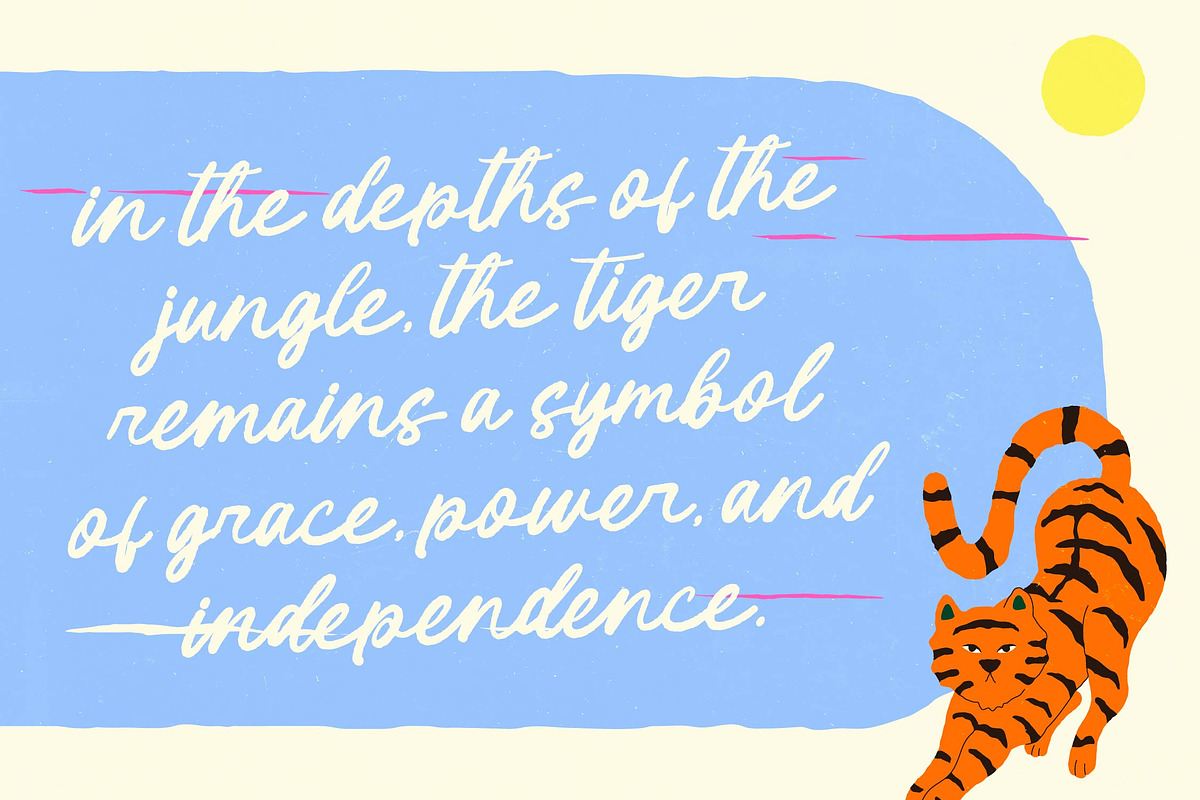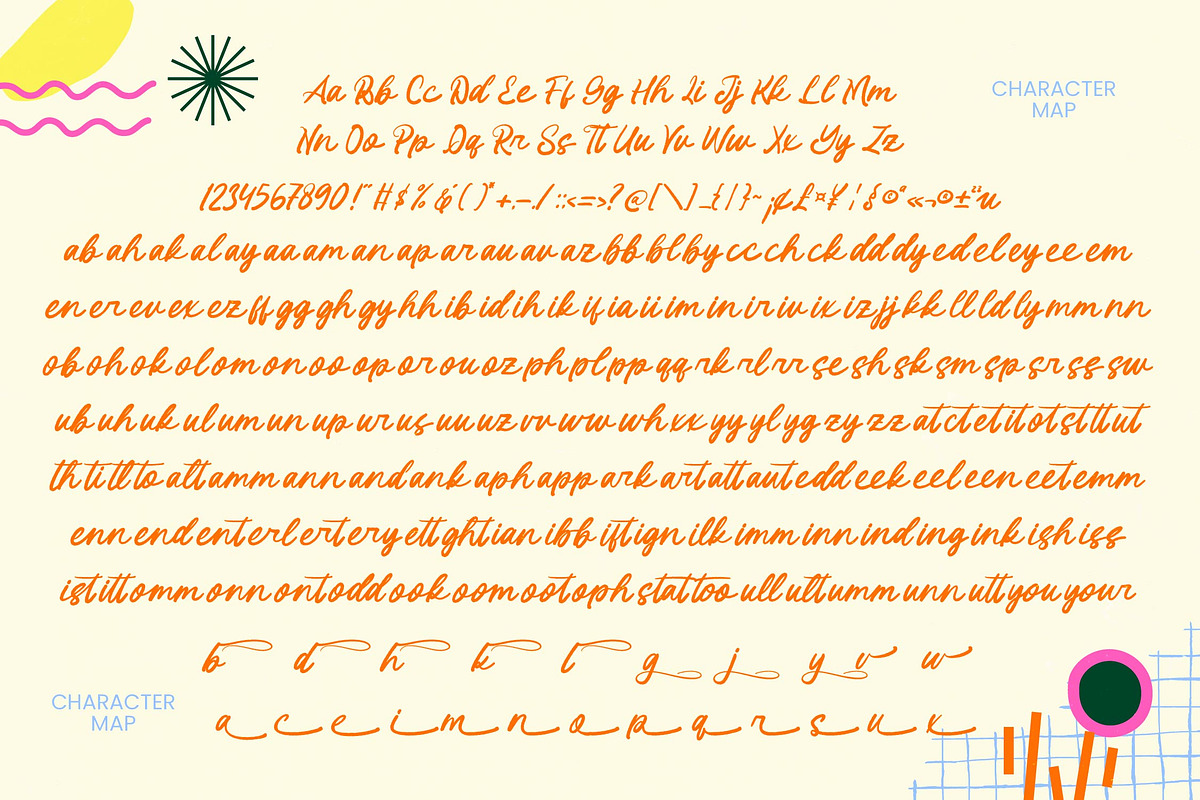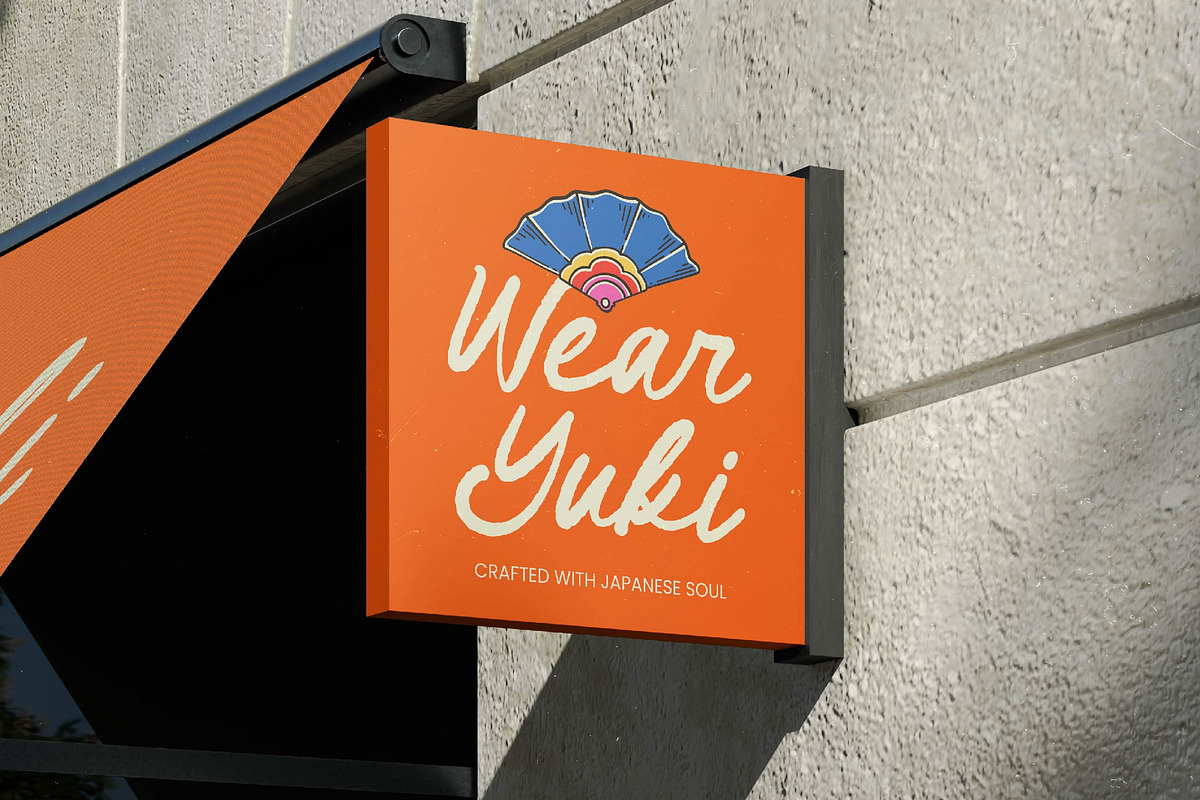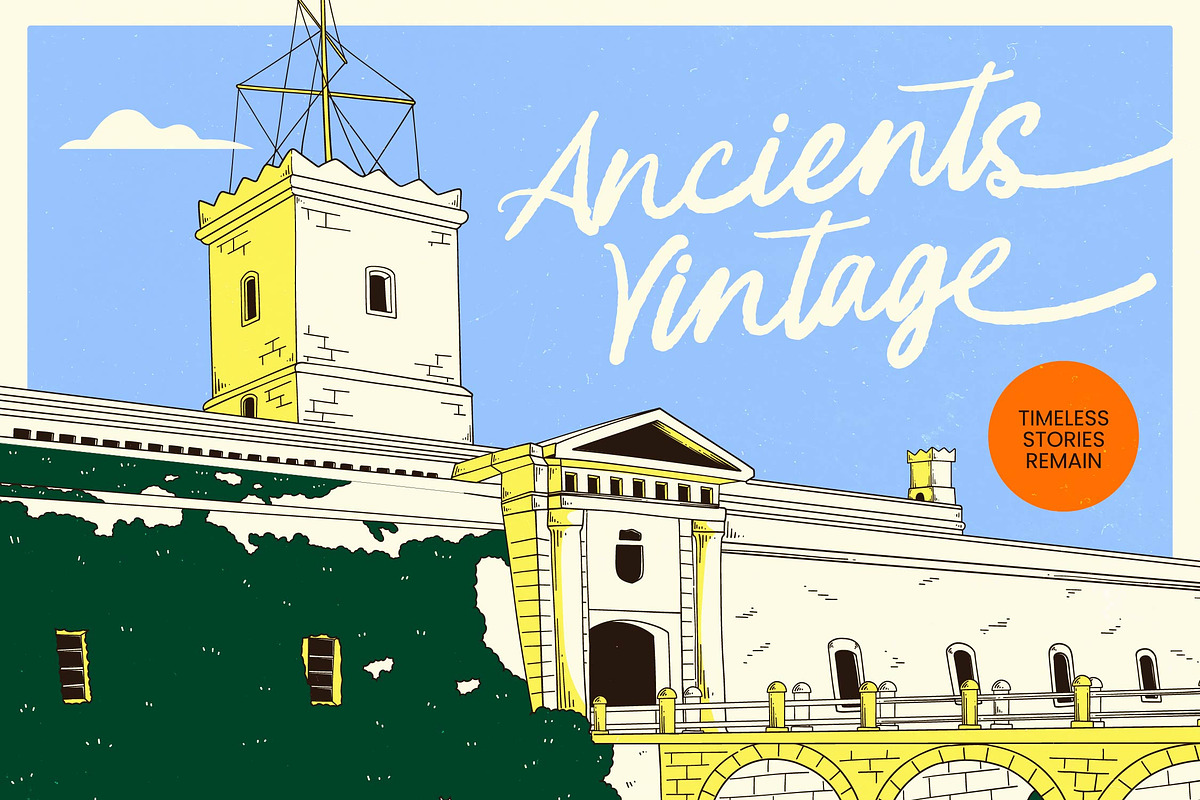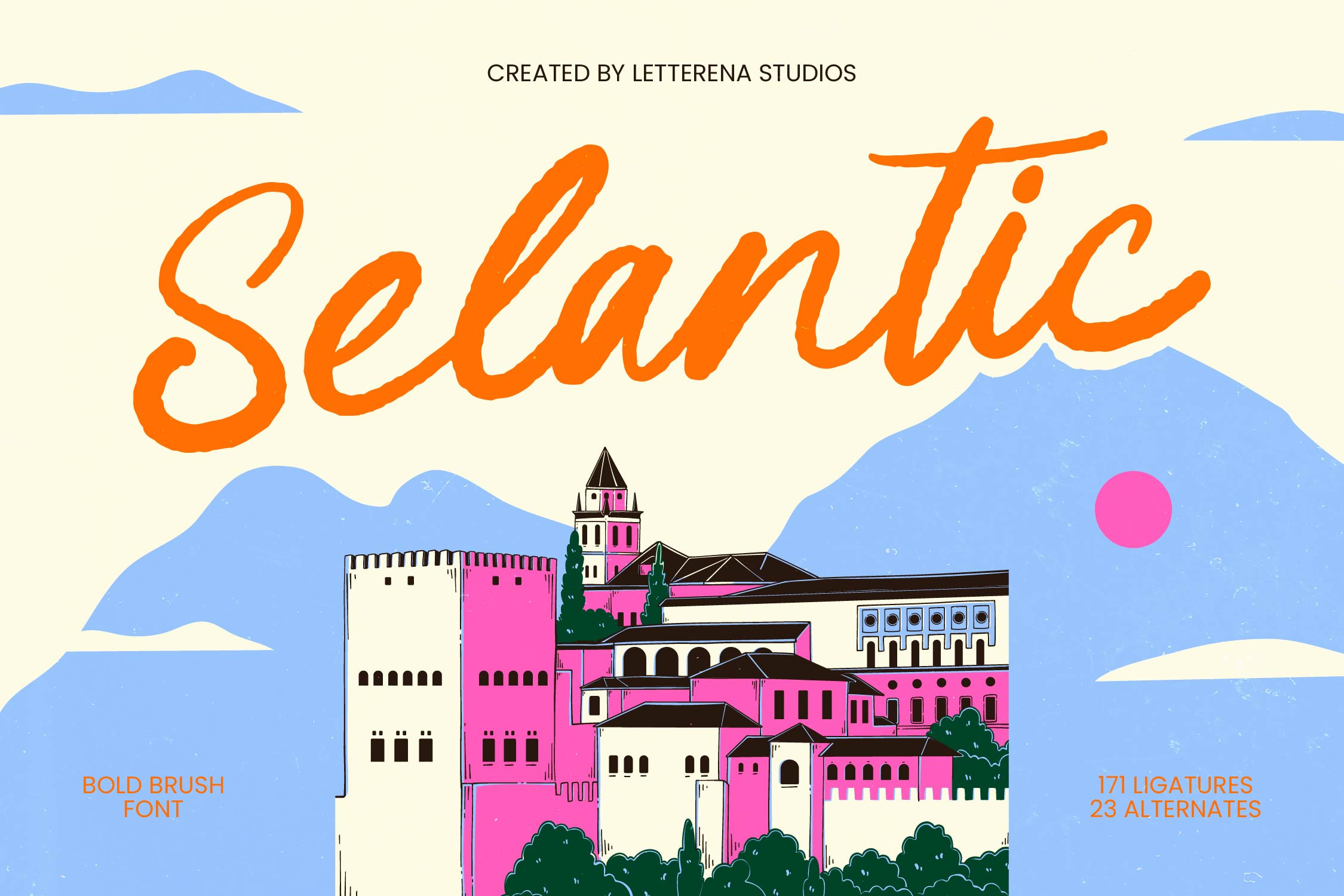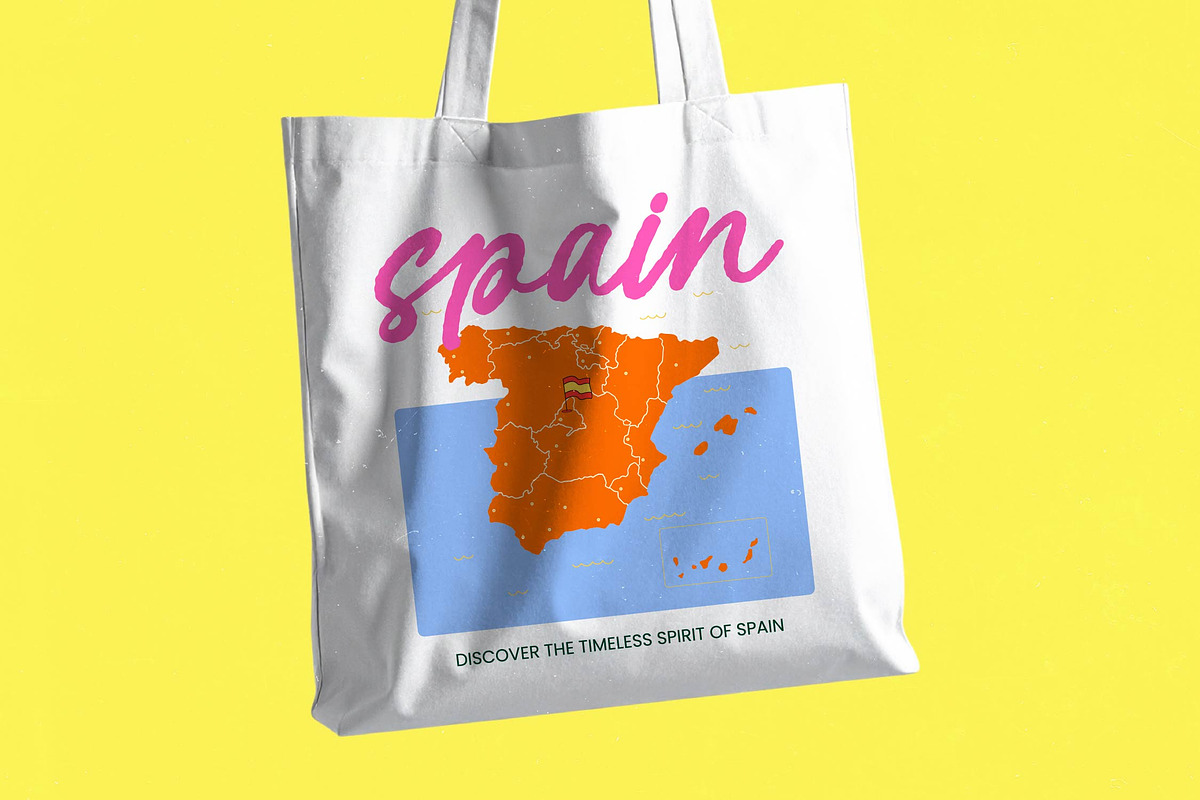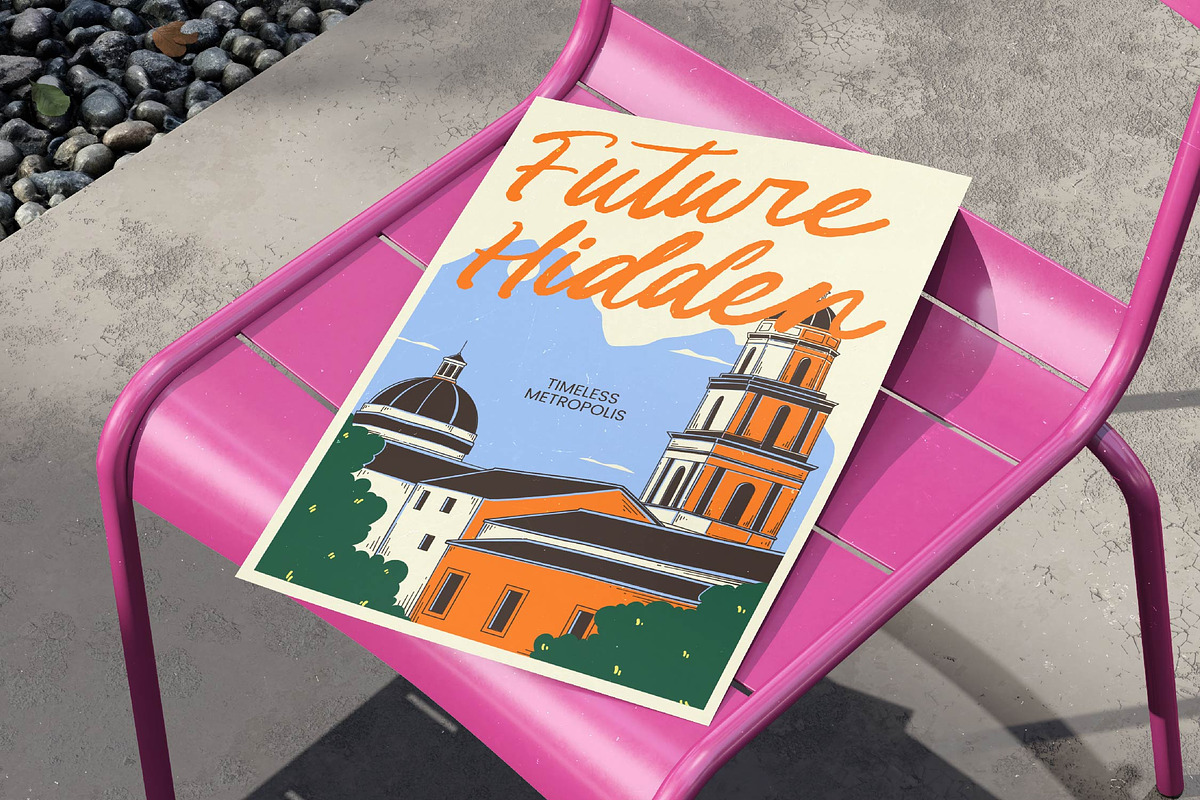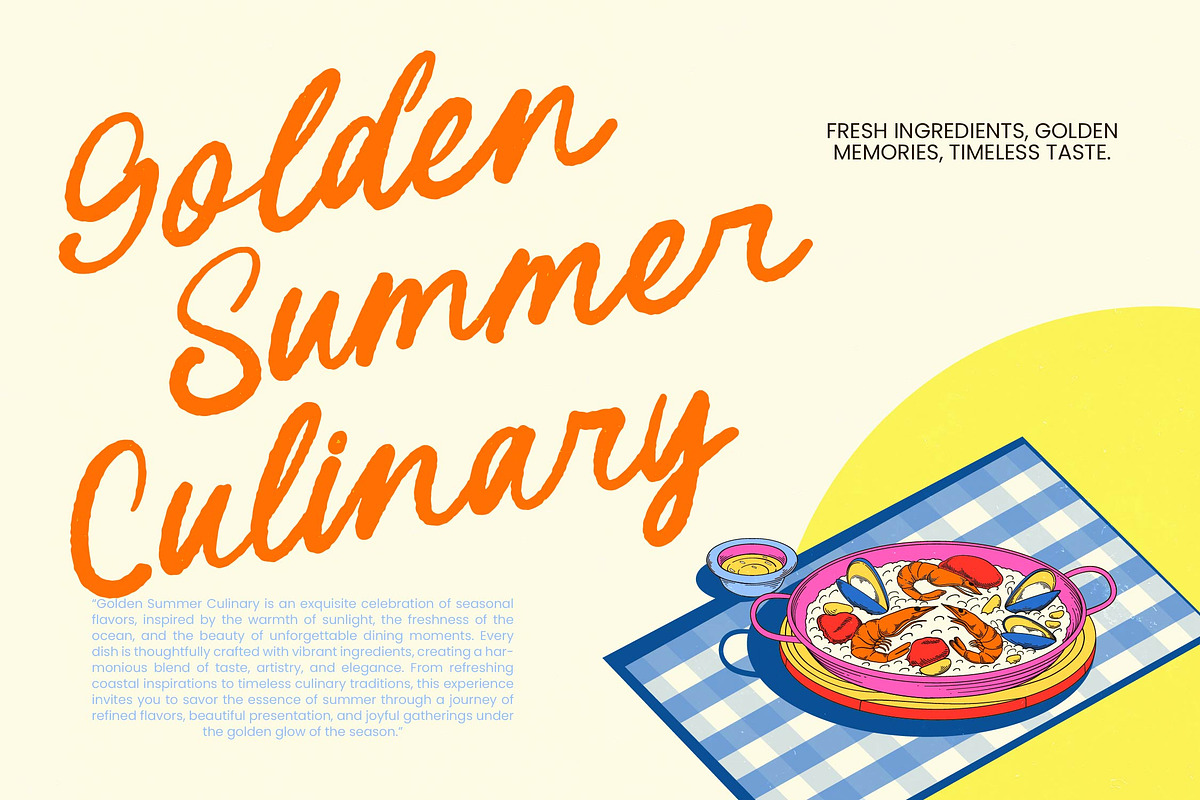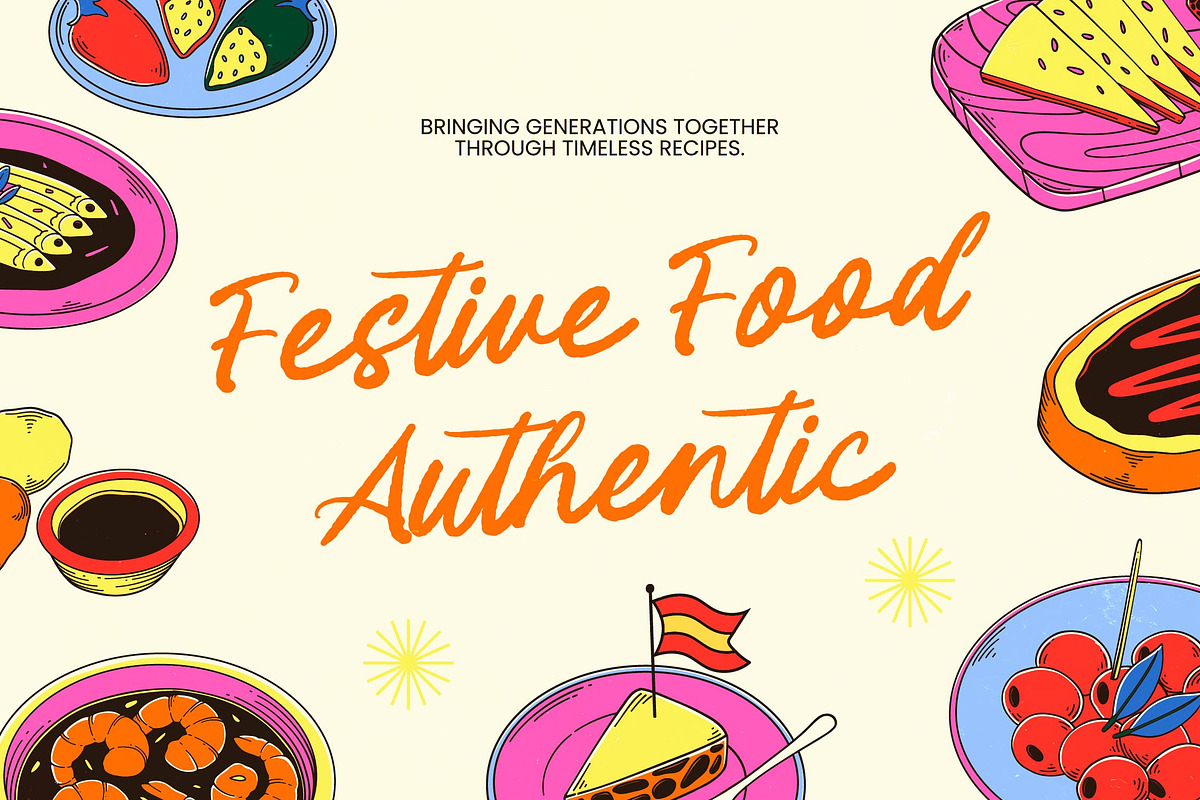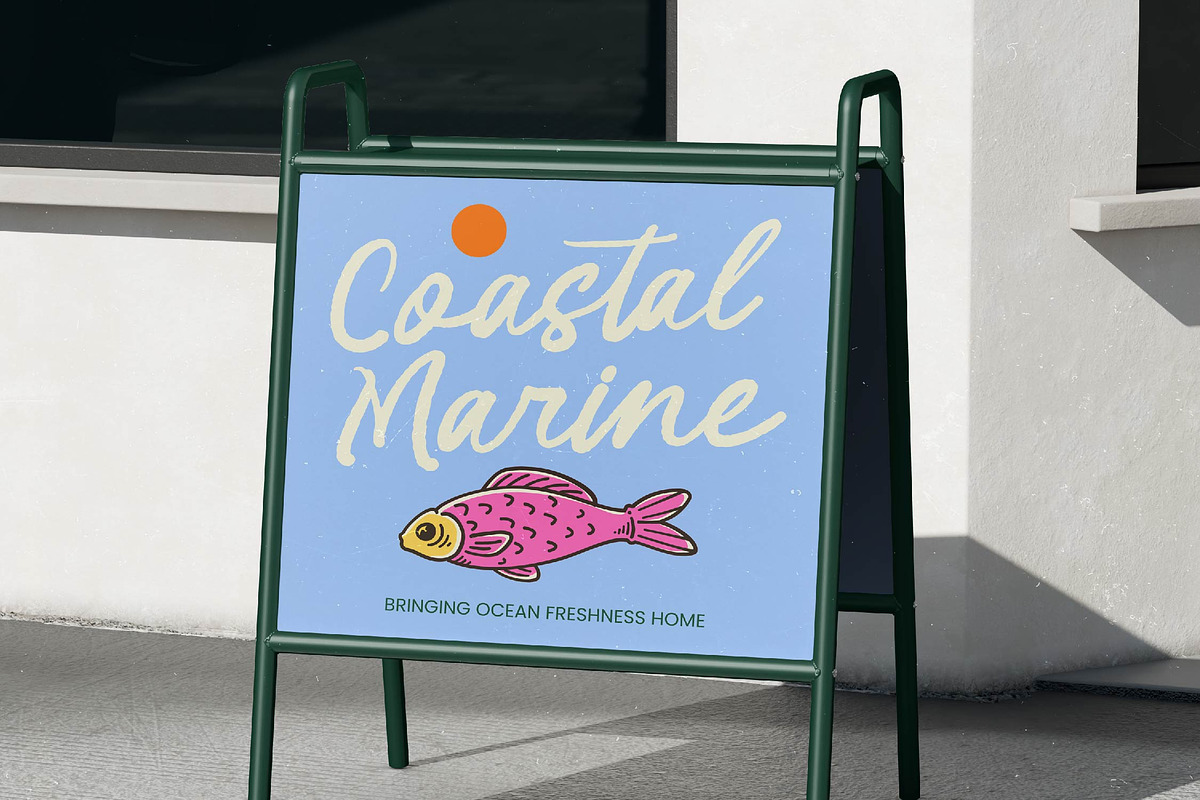
Selantic Bold Brush Font
Selantic - Bold Brush Font
Elevate your creative vision with a typeface that embodies raw energy and sophisticated flair. Selantic - Bold Brush Font is a masterpiece of contemporary hand-drawn typography, designed to command immediate attention. Its fluid strokes and authentic brush texture offer a perfect balance of artistic expression and professional clarity, making it an essential tool for designers seeking a dynamic visual identity and a high-impact aesthetic.
Transform your brand storytelling with the versatile power of high-impact lettering. This expressive script is the ideal application for luxury branding, premium packaging, and impactful editorial design. Whether you are crafting high-end apparel labels, engaging social media graphics, or compelling advertising headers, Selantic - Bold Brush Font is perfect for projects that require a distinctive, human touch that resonates deeply with modern audiences.
Expand your reach effortlessly across the international design landscape with professional-grade character sets. With its extensive multilingual support, Selantic - Bold Brush Font adapts seamlessly across global markets, making it incredibly versatile for international projects. This ensures that your brand message remains consistent and powerful across different regions, providing a truly global solution for cross-cultural marketing campaigns and digital storefronts.
Unlock unparalleled creative freedom with a comprehensive set of specialized typographic features. Featuring over 170 ligatures and exclusive alternates, Selantic - Bold Brush Font provides the creative customization needed to craft one-of-a-kind layouts. Invest in a premium font that masterfully blends organic textures with commercial elegance, ensuring your design work stands out in a competitive marketplace.